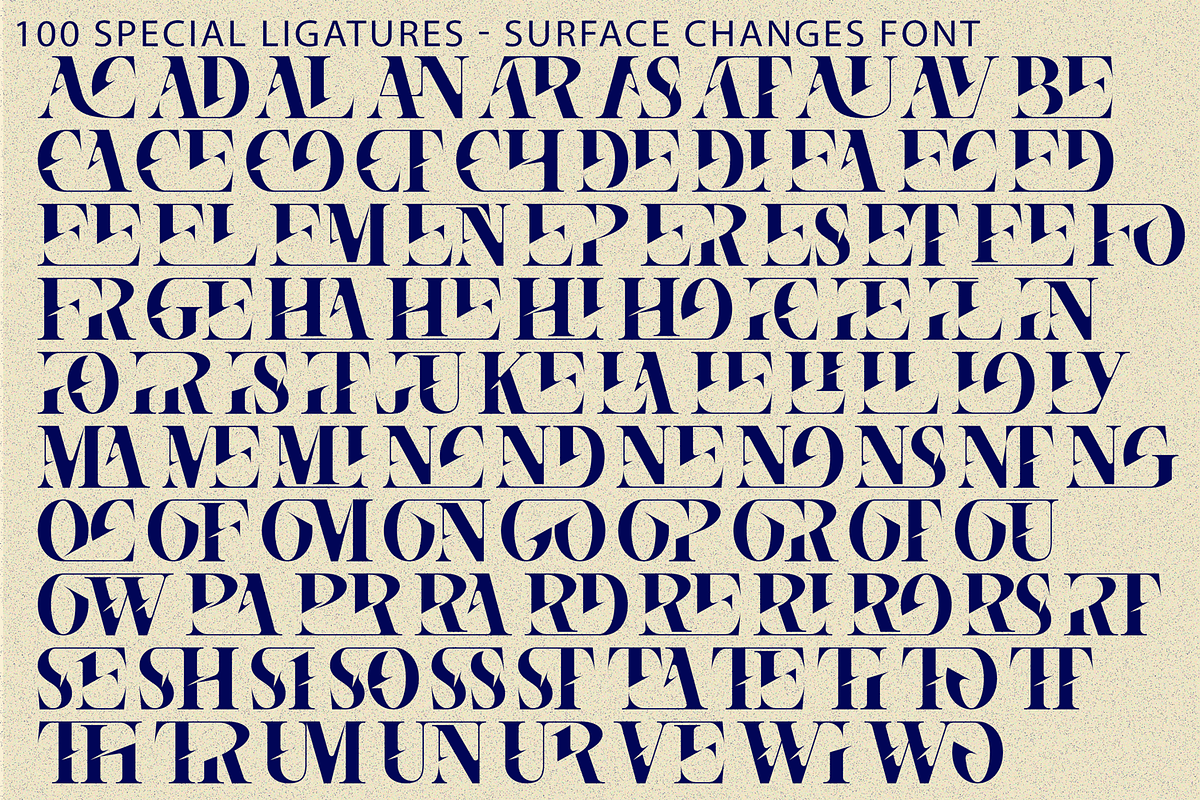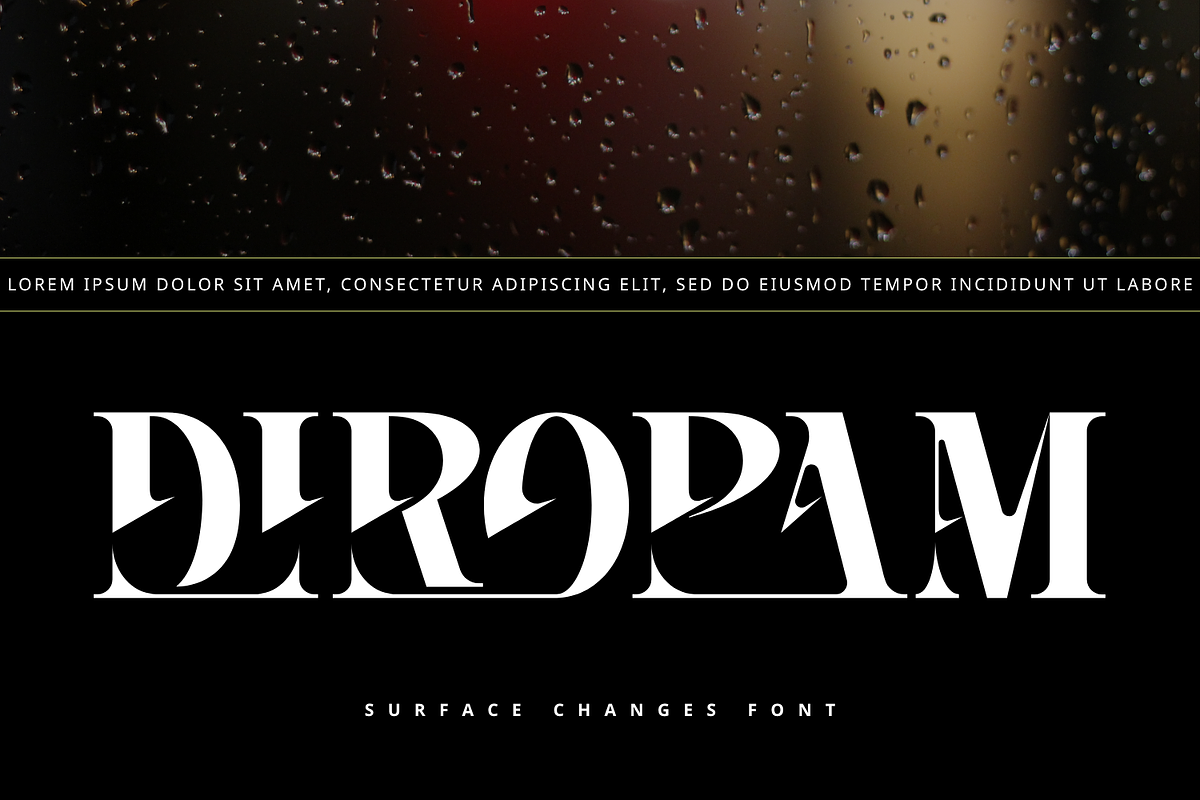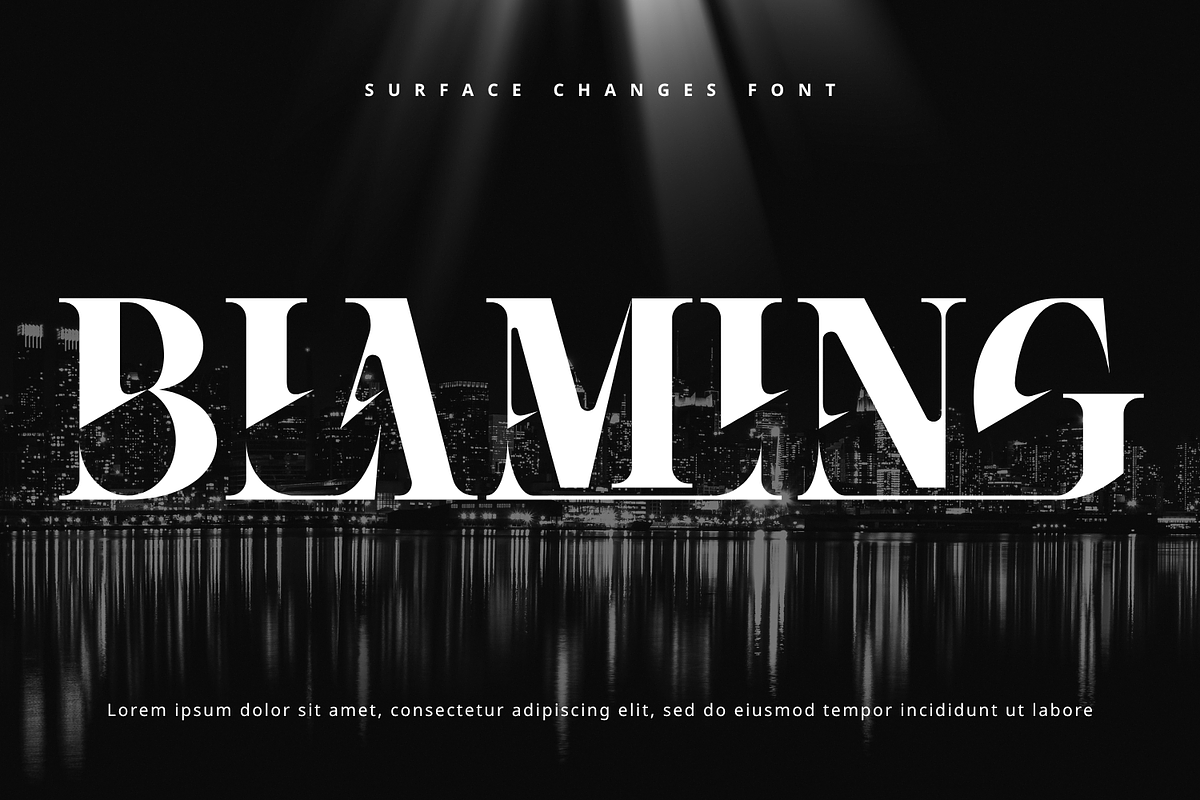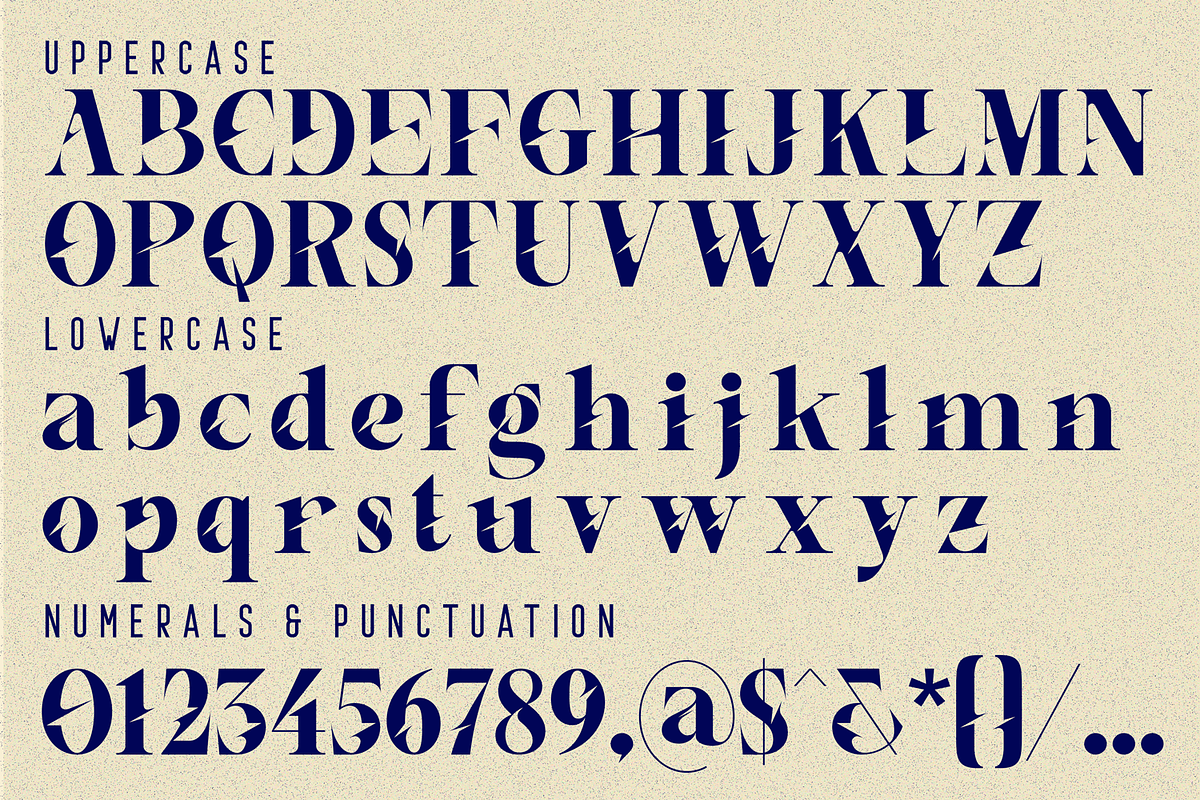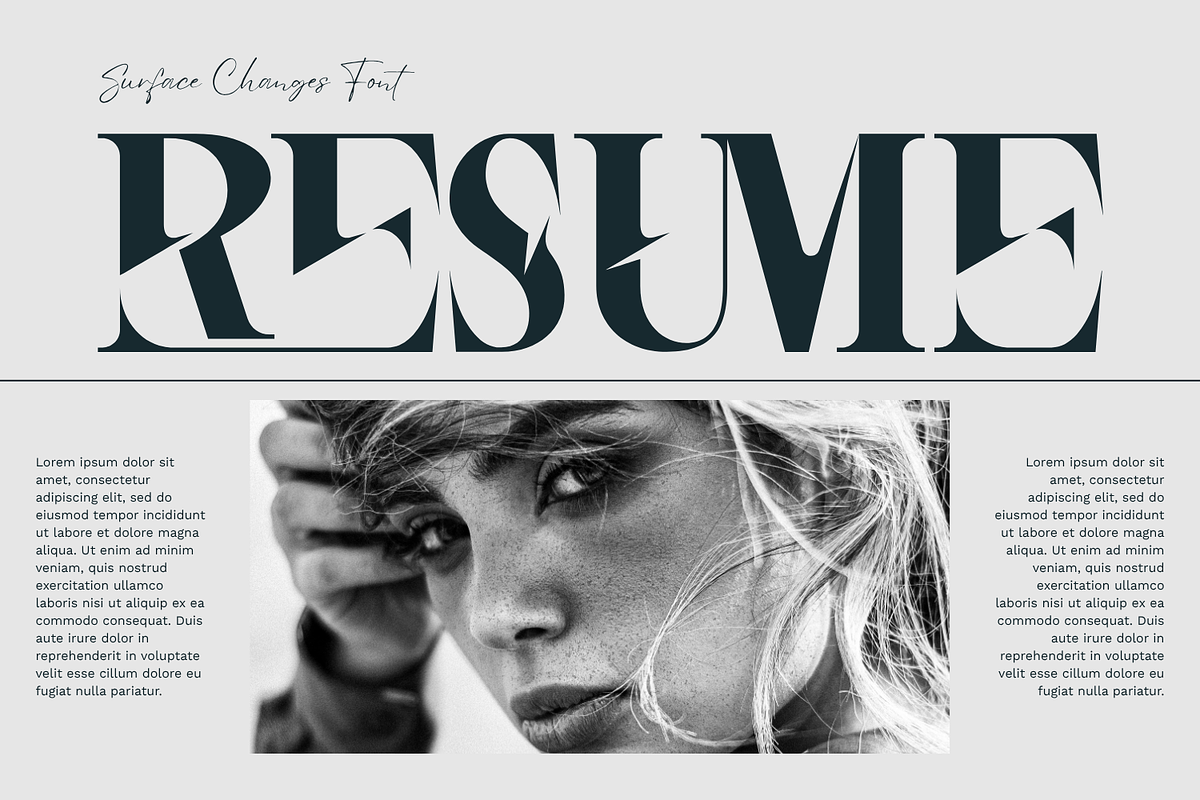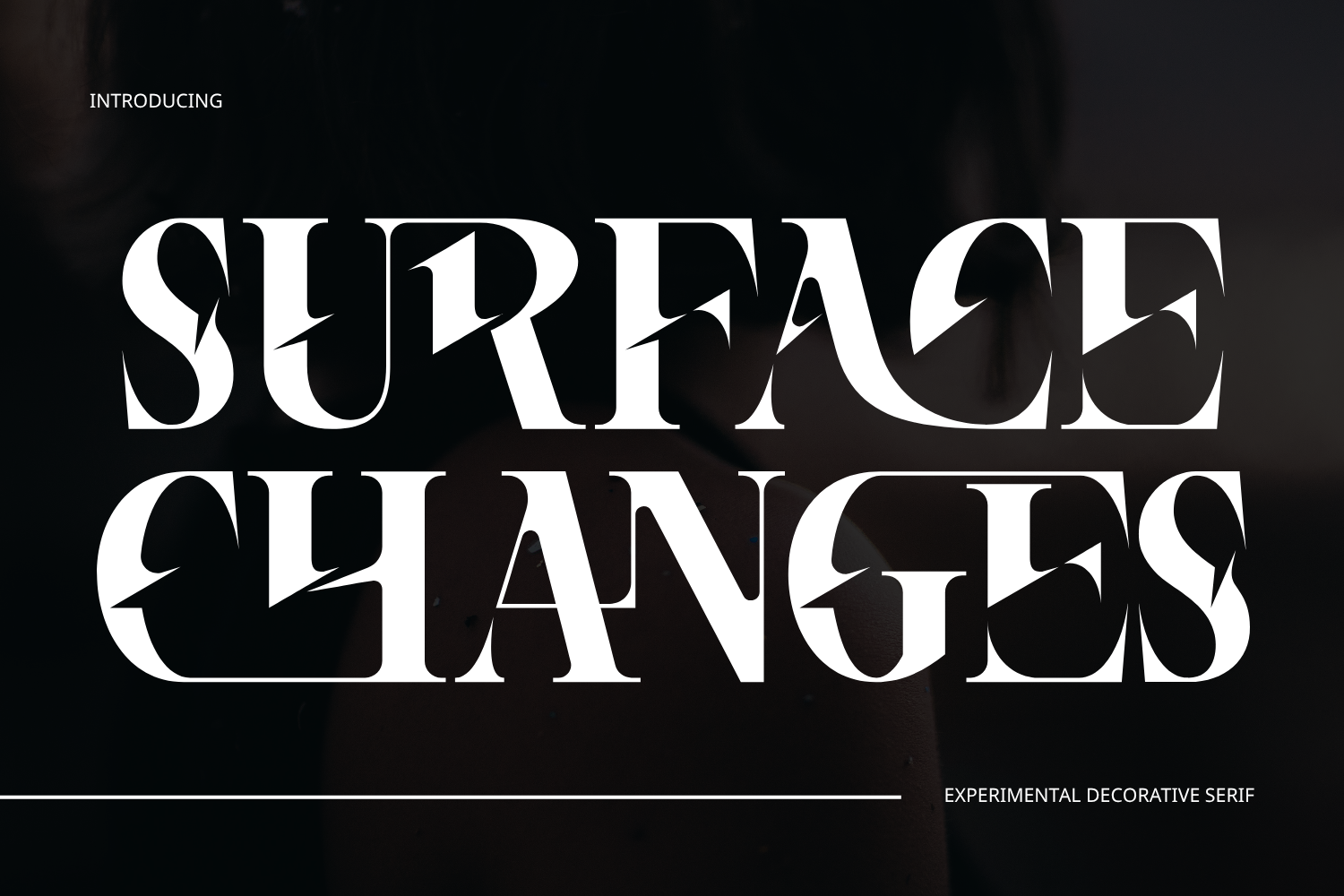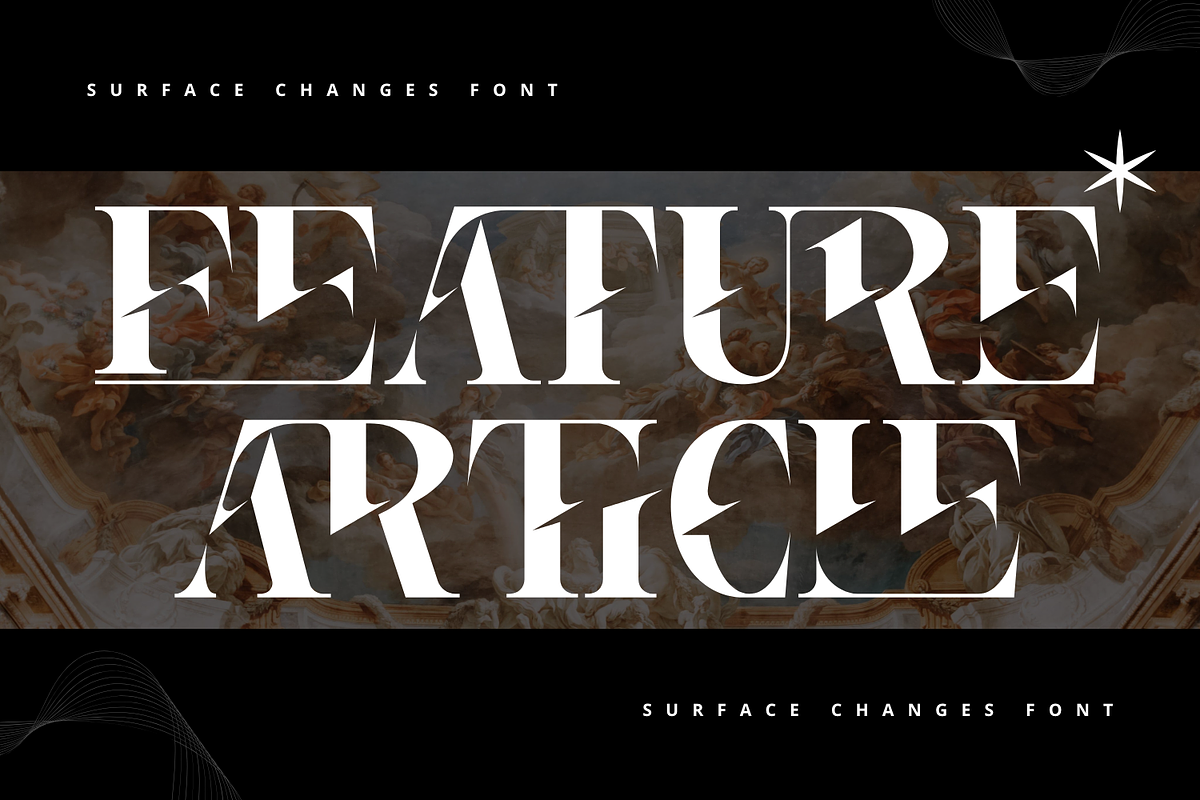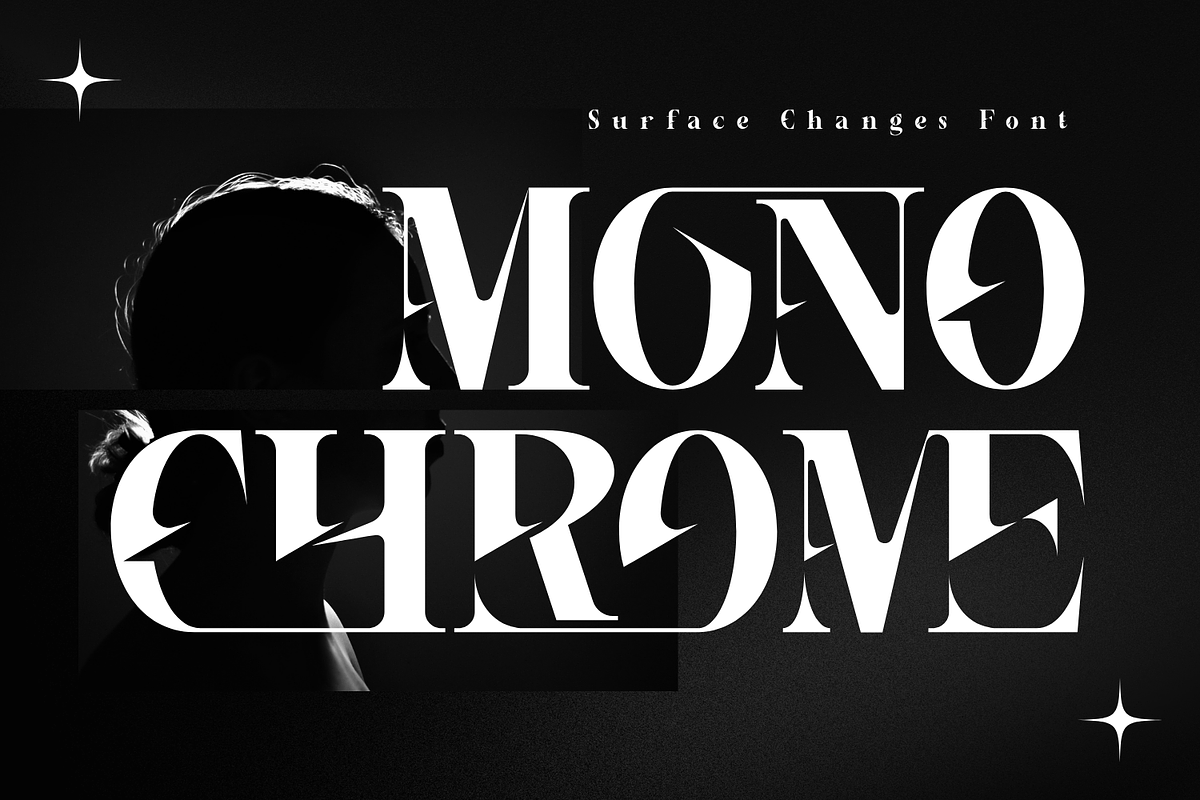
SURFACE CHANGES - LUXURY SERIF FONT
SURFACE CHANGES - LUXURY SERIF FONT is a sophisticated modern serif display font that blends timeless elegance with bold contemporary character. Inspired by luxury editorial typography and high-fashion aesthetics, this typeface features dramatic high-contrast strokes, refined proportions, and distinctive angular cut details that create a truly unforgettable visual identity. Designed with sharp triangular accents and elegant letterforms, SURFACE CHANGES offers a perfect balance between classic serif beauty and modern artistic expression. The unique internal cuts and pointed terminals add depth, personality, and a sense of exclusivity, making every headline look striking and premium.
🔤Features:
Uppercase & Lowercase Letters
Around 100 Special Ligatures & Alternates
Accented Characters for multilingual support
🔤About 100 ligatures combined with Stylistic Alternates Font:
AC AD AL AN AR AS AT AU AV BE CA CE CH CO CT DE DI EA EC ED EE EL EM EN EP ER ES ET FE FO FR GE HA HE HI HO IE IC IL IN IO IR IS IT JU KE LA LE LI LL LO LY MA ME MI NC ND NE NG NO NT NS OC OF OM ON OO OP OR OT OU OW PA PR RA RD RE RI RO RS RT SE SH SI SO SS ST TA TE TH TI TO TR TT UM UN UR VE WI WO